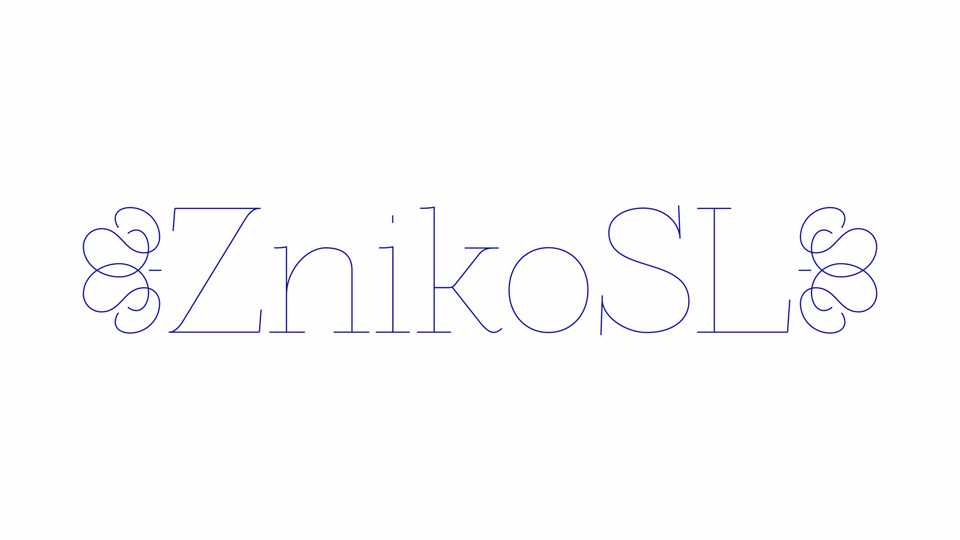
Download ZnikoSL-SVGinOT-8 font, a single line serif typeface in new OpenTypeSVG format. ZnikoSL is a light monoline font with a distinct and eye-catching personality.
Designer: Grzegorz Luk